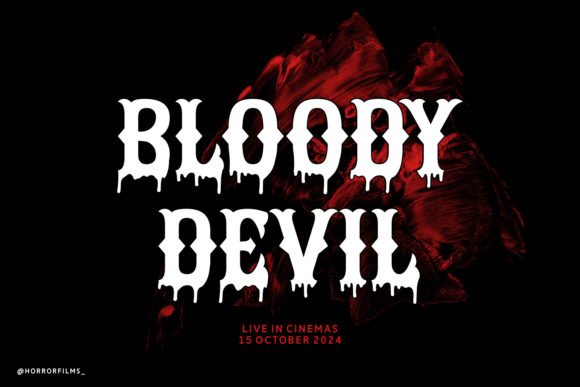
Demoon Font
Immerse yourself in the spirit of macabre with the spine-tingling Halloween Party Scream Horror font. This font captures the quintessential shades of black and haunting orange that echo the heart of October’s autumnal ghouls. The font emanates eerie vibes of dark lantern-lit moonlit nights and spooky holiday celebrations one can only find in a graveyard. Stylistically encapsulating symbols of bats, spiders, sinister pumpkins, and classic Dracula, it offers a potent grimoire of Halloween imagery. Despite its creepy undertones, the font embraces humor and fancy, manifested in playful ghosts, cute witches, fantasy jack-o-lanterns, and fun trick or treat traditions. Furthermore, as integral elements of the Gothic allure, skulls, and skeletons are intricately woven into its visual narrative, alluding to juicy horror tales spun on cemetery stones. Plus, its festive undertone hints at Thanksgiving, making it an eclectic mix for your creative projects. With its stunning ghoulish aesthetics, this collection offers a delightful fusion of fear and fun, evoking the thrill of a yellow moon casting long shadows over a carved pumpkin, – this font screams Halloween! So, get ready to embrace the monster within and set a spooky, yet funny party vibe with Halloween Party Scream Horror font.